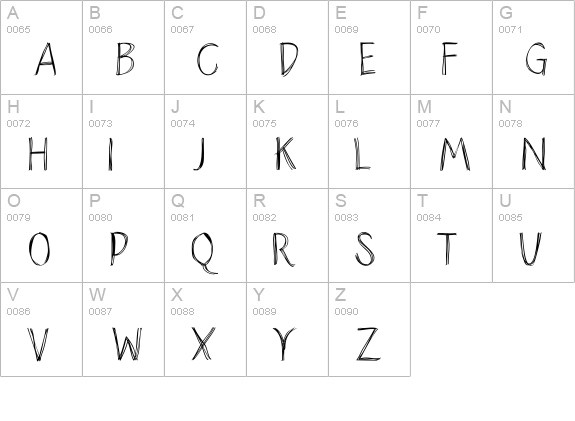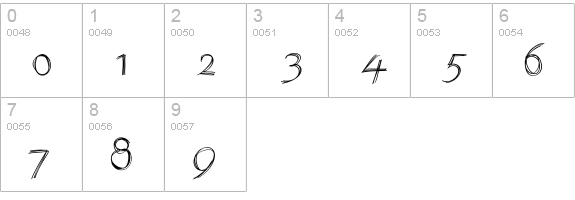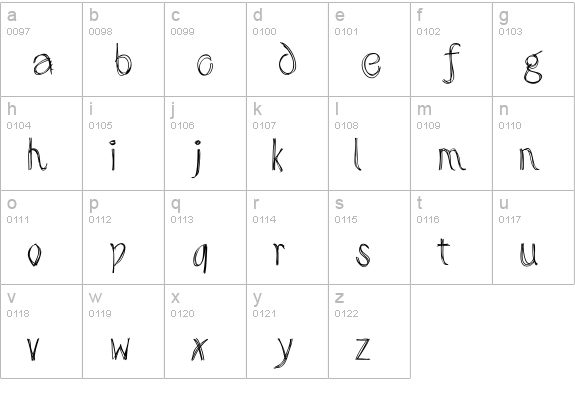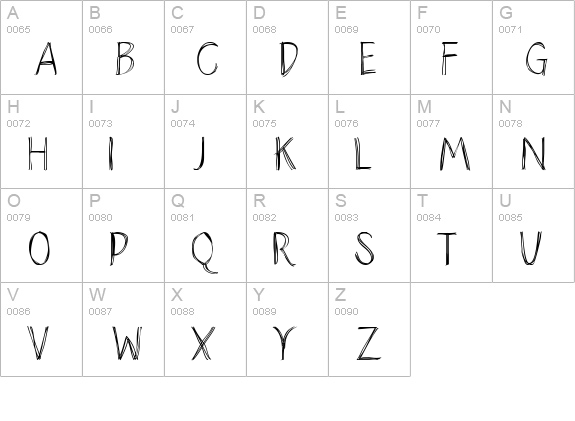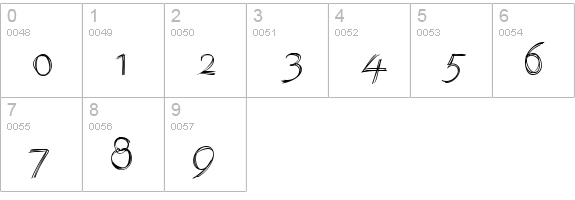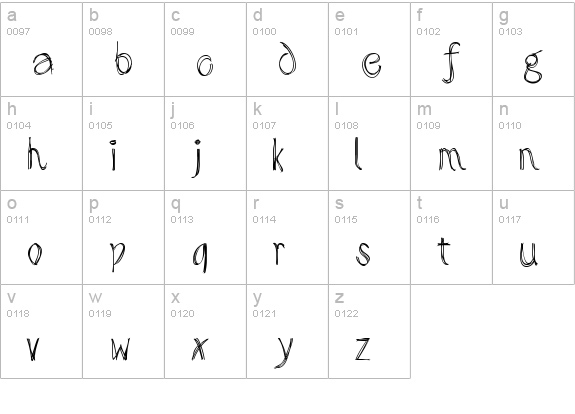
SketchedAlphabet Font Details
Introducing SketchedAlphabet, a captivating and unique font that will add a touch of creativity and whimsy to your designs. With its hand-drawn appearance, this font captures the essence of free-spiritedness and artistic expression. SketchedAlphabet is meticulously crafted to resemble the imperfect strokes and charming imperfections of a hand-drawn sketch. Each letter exudes an organic and playful vibe, making it perfect for projects that require a personal and artistic touch. This font is not only visually striking but also incredibly versatile. Whether you're designing a logo, creating eye-catching headlines, or adding a personal touch to your digital artwork, SketchedAlphabet will effortlessly elevate your creations to new heights. The best part? SketchedAlphabet is freely available to download at FontsMarket.com. Now you can effortlessly incorporate this stunning font into your designs without worrying about breaking the bank. Simply visit FontsMarket.com and start exploring the endless possibilities that SketchedAlphabet brings to your creative endeavors. Say goodbye to generic and predictable fonts and embrace the world of hand-drawn charm with SketchedAlphabet. Download it for free today and let your imagination run wild.